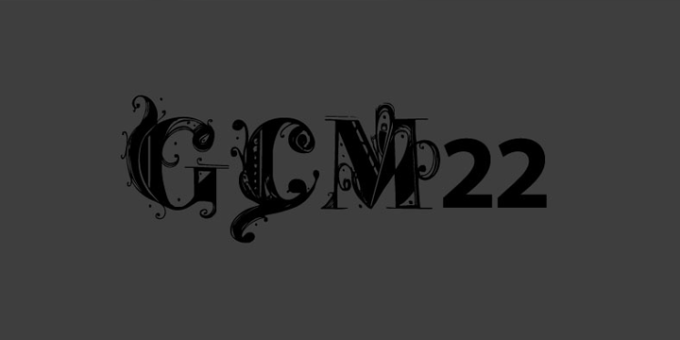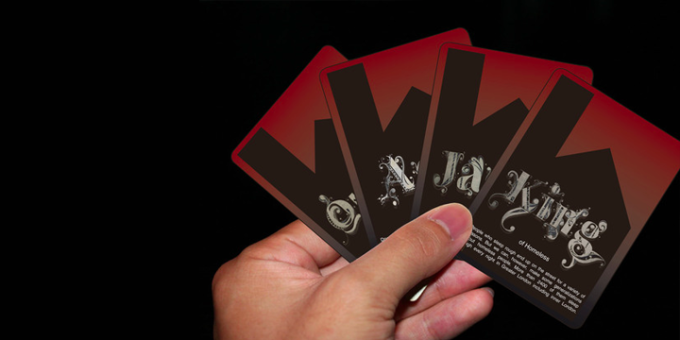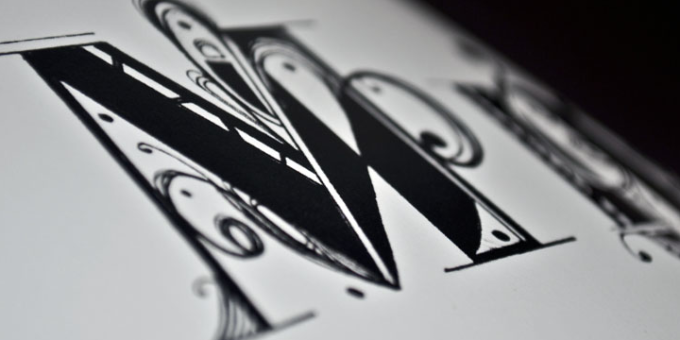
GCM22
GCM22 is designed initially using the classical French Didot style but with a contemporary ornate decorative twist. GCM22 is also based on the letterforms of typographers; John Pistilli, Herb Lubalin and Si Scott. The ornate letterforms are based around the art of Turkish Ebru marbling, which is painting on water to create decorative patterns. This typeface is recommended for display purpose only.